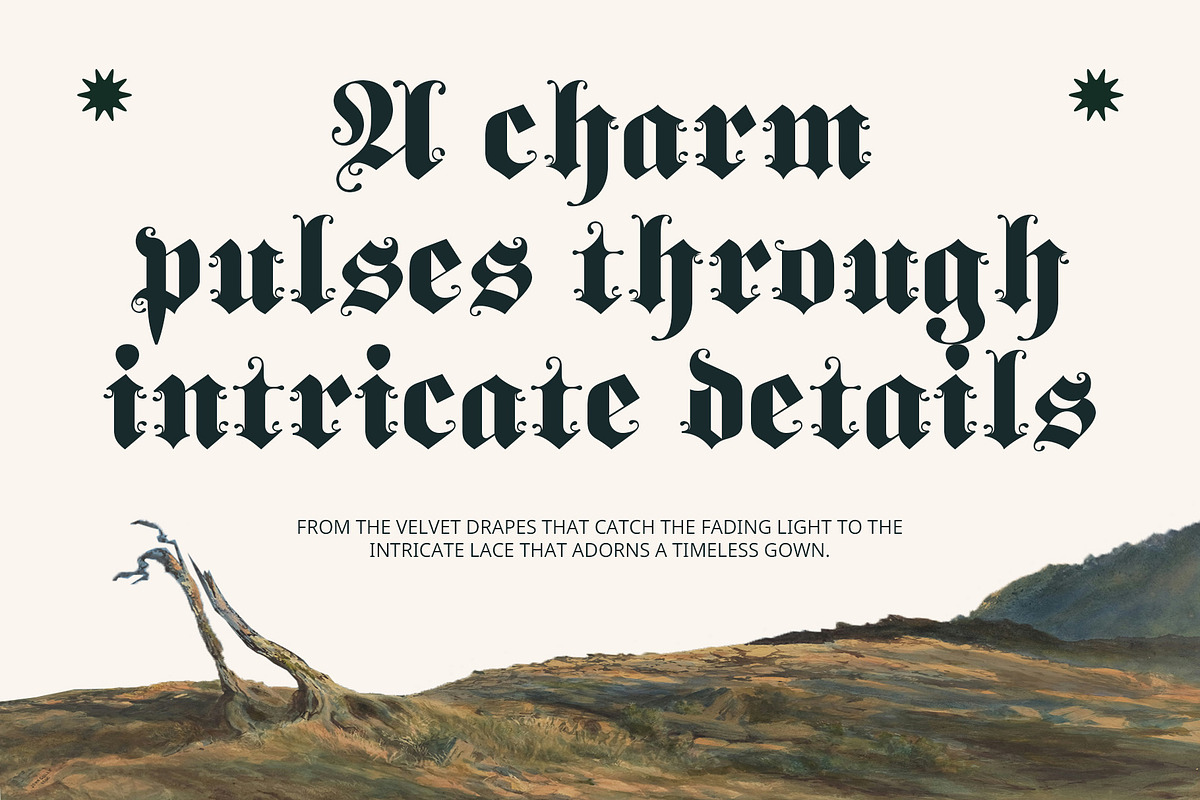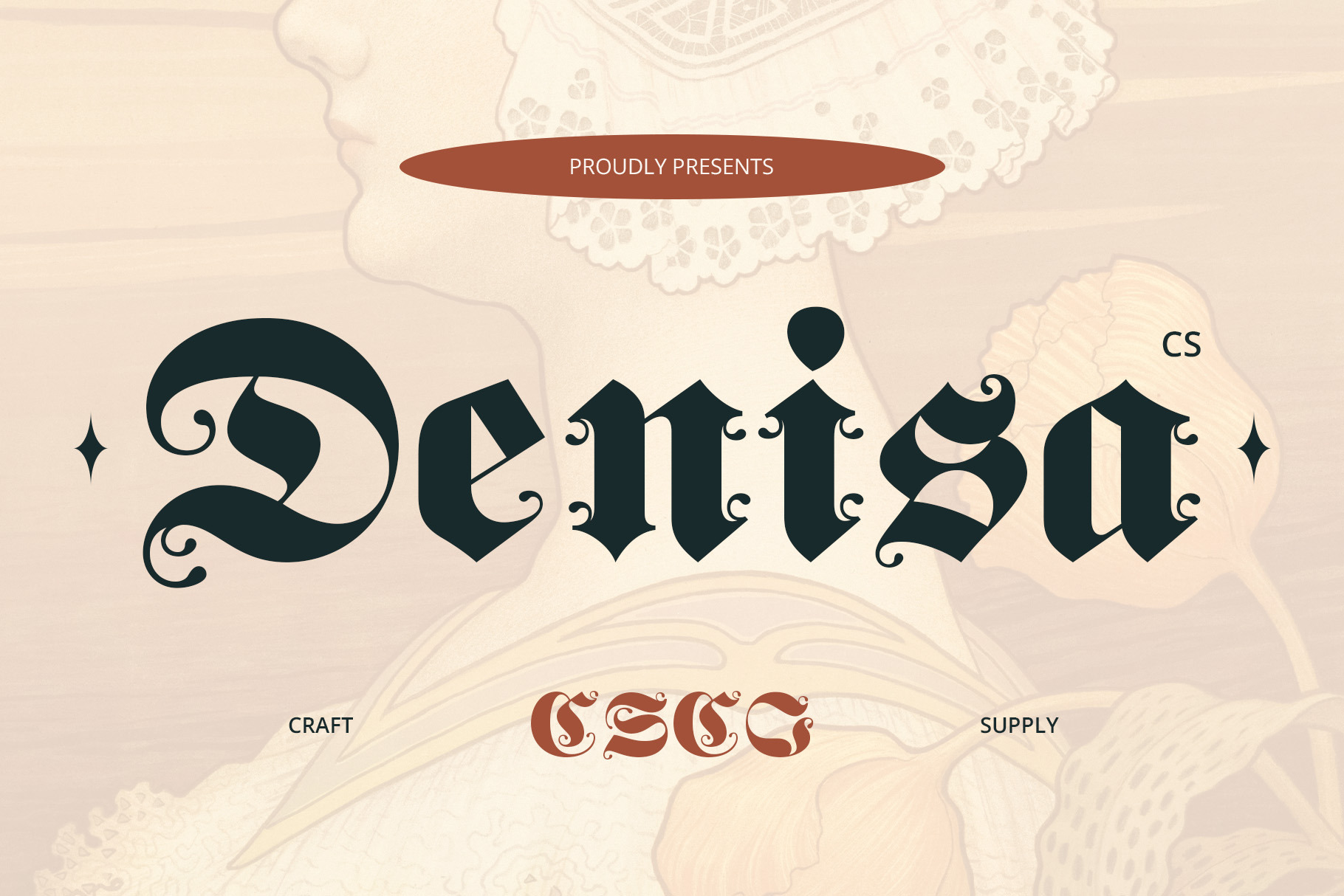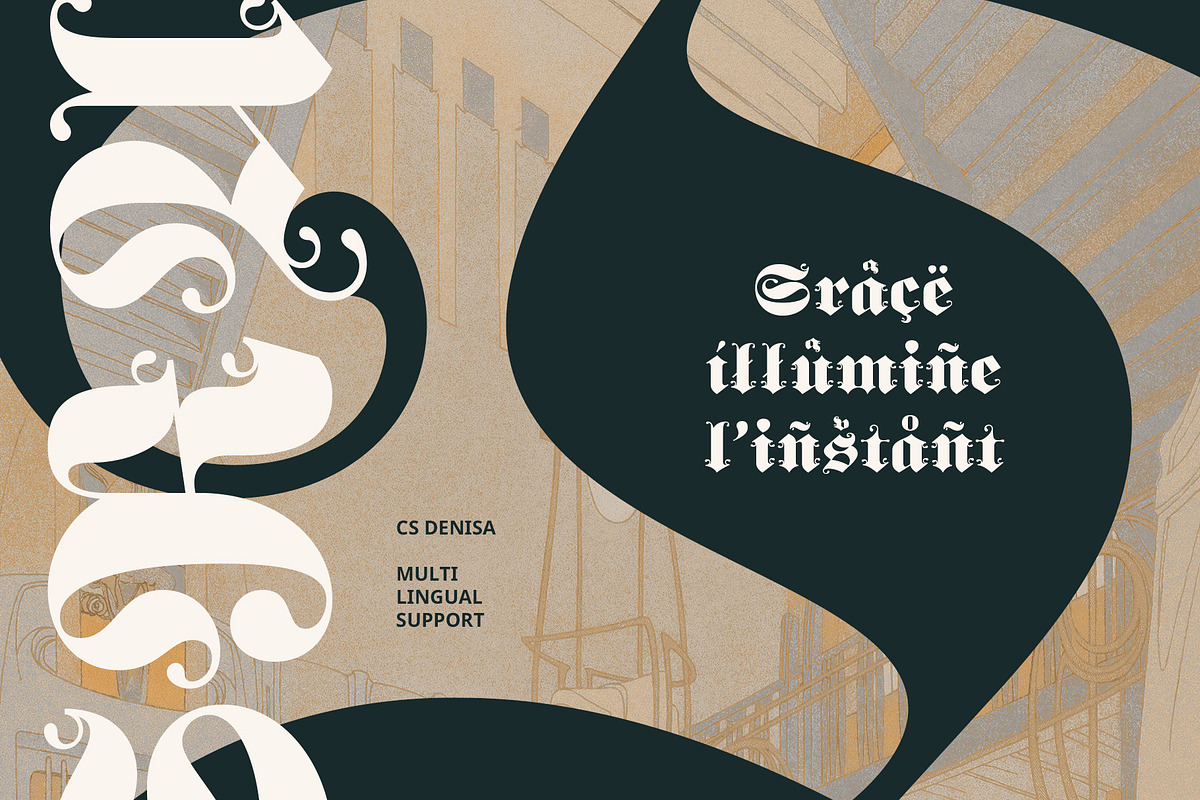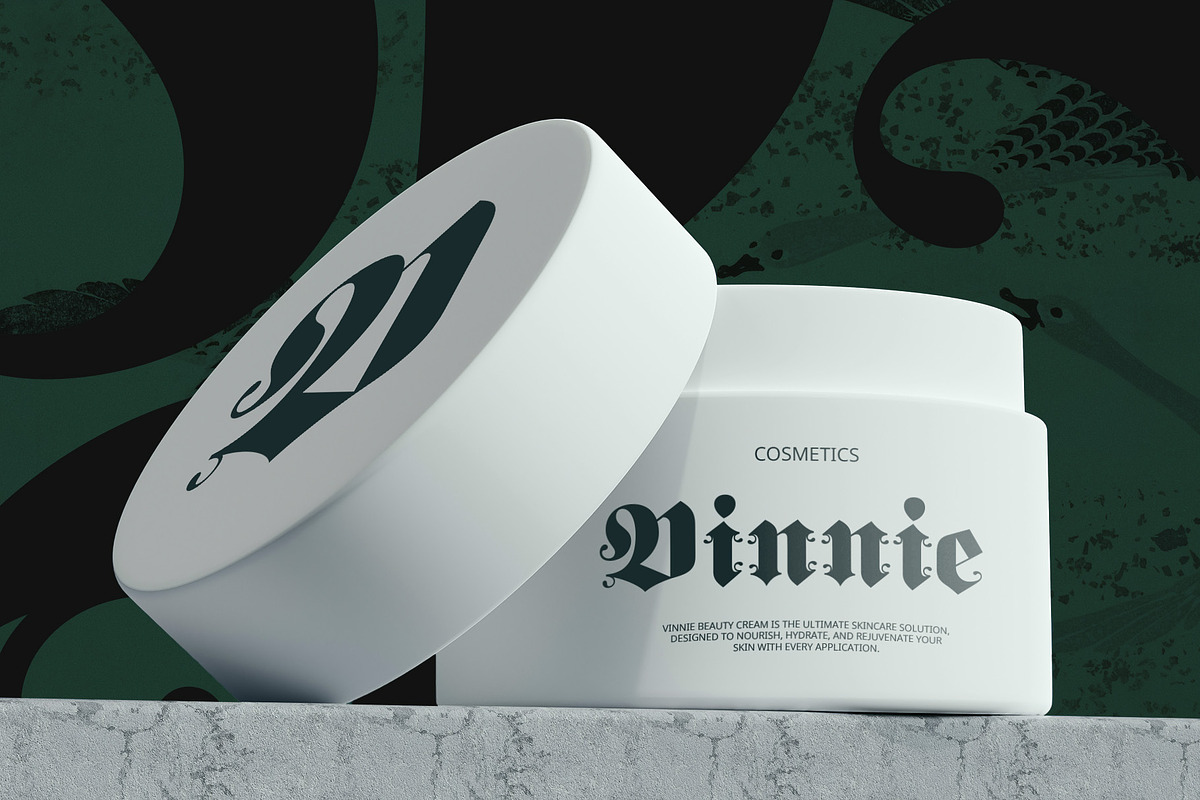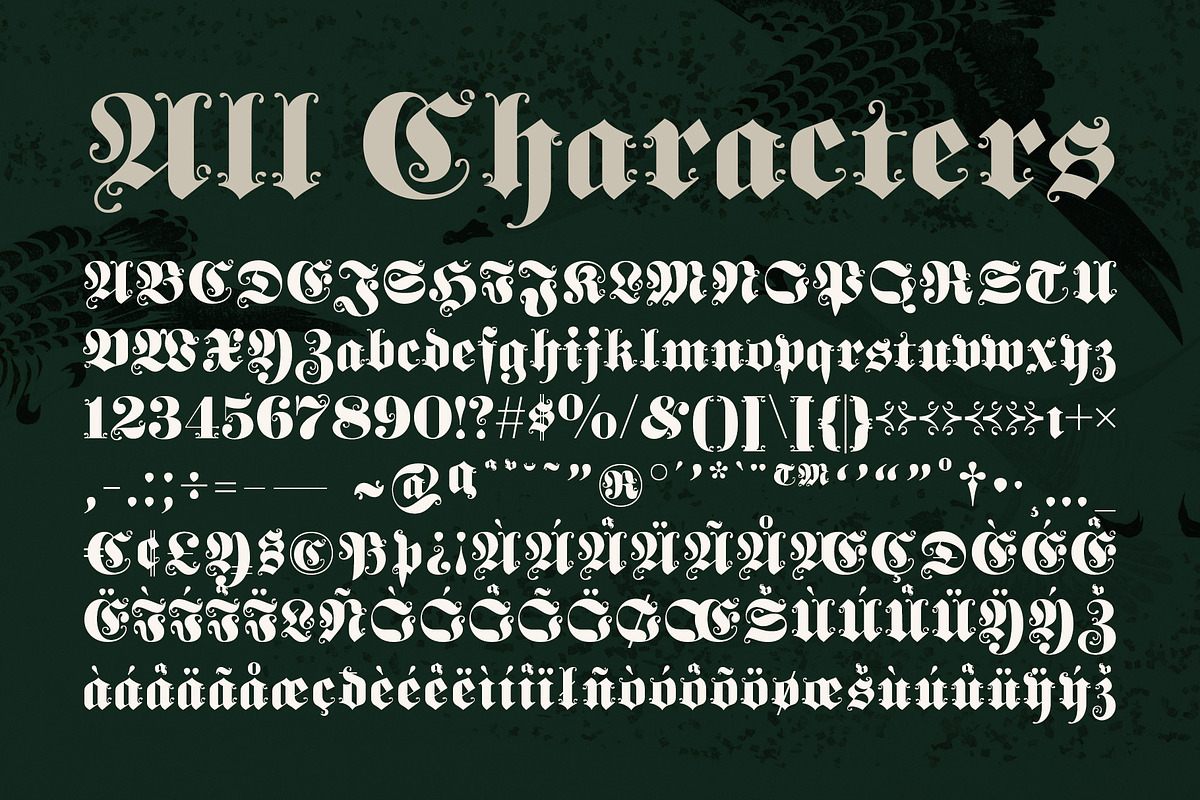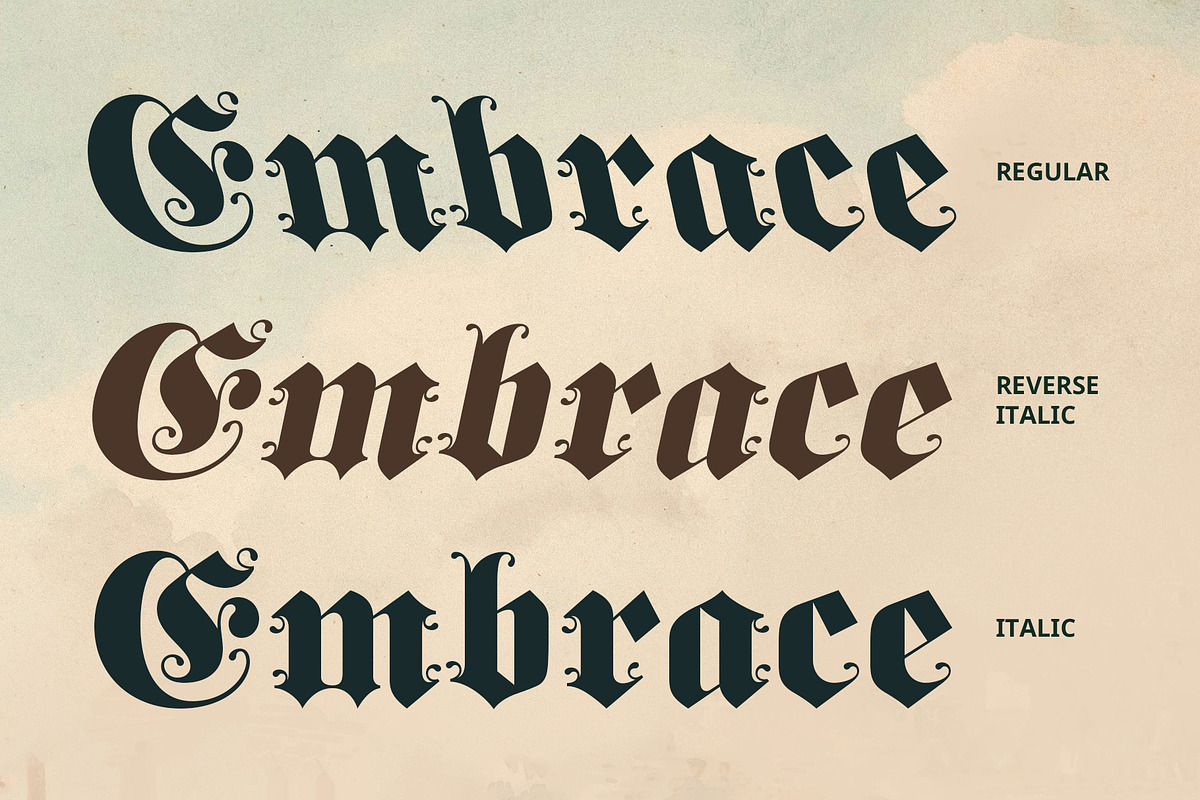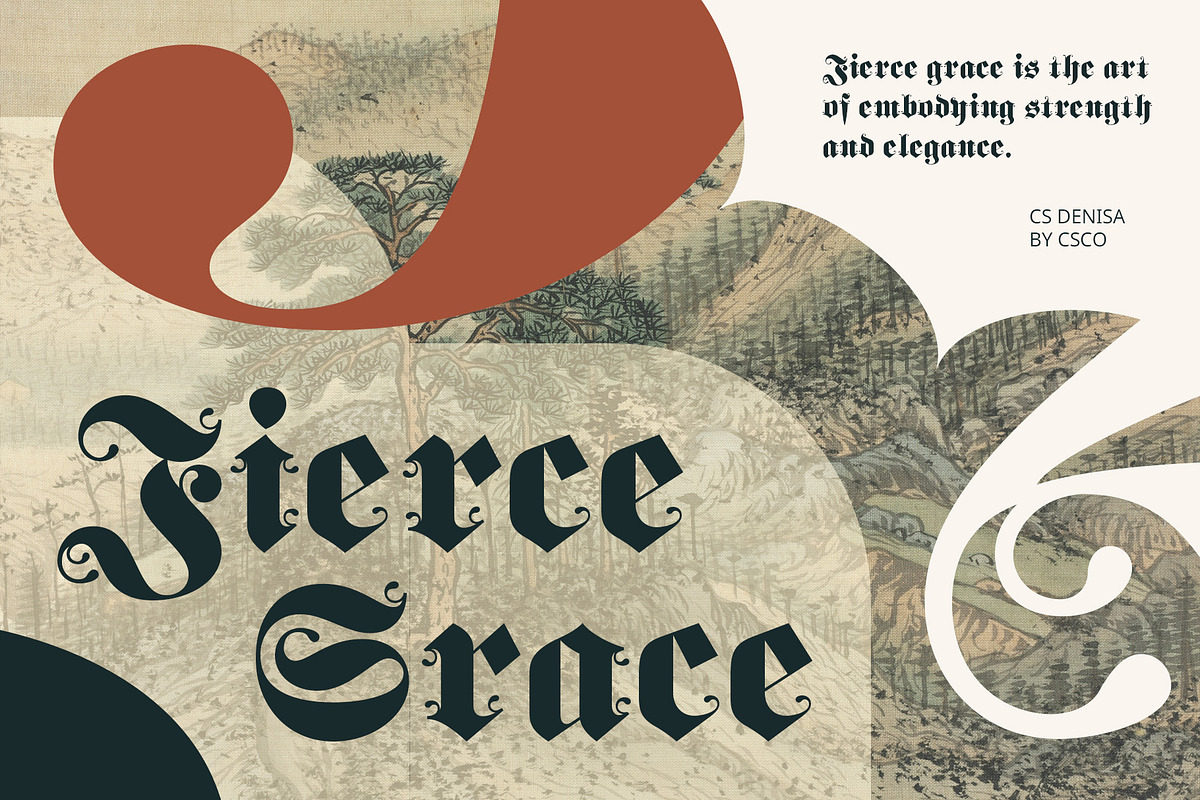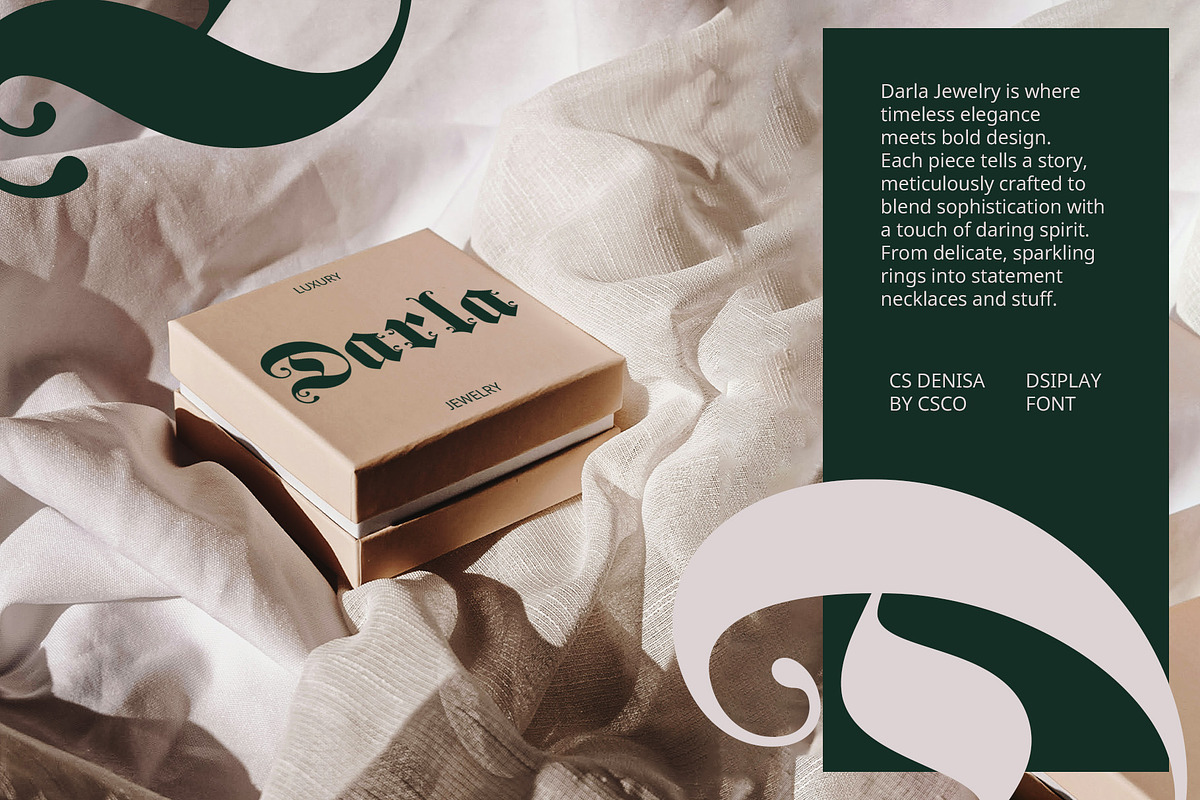
CS Denisa – Blackletter Font
CS Denisa – Bold Blackletter Fraktur Font
Timeless Gothic Elegance CS Denisa is a bold blackletter fraktur display font that merges traditional Gothic aesthetics with modern impact. Its intricate letterforms feature sharp angles, dramatic strokes, and striking contrasts, embodying strength, authority, and historical charm. The bold weight enhances its commanding presence, making it ideal for designs that demand attention and sophistication.
Versatile and Impactful Design Whether used for logos, posters, branding, or editorial layouts, CS Denisa brings a sense of grandeur and authenticity to your projects. The font’s bold design ensures readability while preserving the ornamental qualities of classic blackletter styles, making it suitable for both contemporary and historical themes.
Strength and Authority in Typography CS Denisa’s bold fraktur style exudes power and confidence, perfect for designs that aim to convey a strong, authoritative message. Its Gothic roots provide a sense of tradition and cultural depth, ideal for projects related to heritage, luxury branding, or formal events.
Historical Charm Meets Modern Appeal This font balances the ornate beauty of medieval script with a bold, modern twist, making it suitable for vintage-inspired designs, craft beer labels, wedding invitations, or any project that celebrates history while appealing to contemporary tastes.
- CS Denisa Regular
- CS Denisa Italic
- CS Denisa Reverse Italic